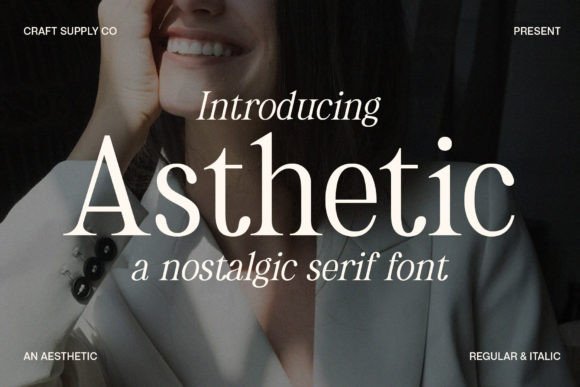
Introducing Asthetic: A Timeless Serif Font for Nostalgic Designs
Have you ever been in the middle of a design project, and suddenly, you’re stuck on finding the perfect font? I recall a particularly frustrating experience while working on a vintage-themed greeting card project. My client wanted a font that would transport their customers back in time, but everything I tried seemed either too modern or too over-the-top. That’s when I discovered Asthetic, a nostalgic serif font that instantly captured the essence of bygone eras.
A Personal Review of Asthetic
As a designer, I’m always on the lookout for fonts that can add a touch of personality to my projects. Asthetic has quickly become one of my go-to fonts, and here’s why:
- ✨ Timeless lines: Asthetic’s classic design ensures that your projects won’t look dated anytime soon.
- ✅ Vintage charm: This font effortlessly evokes a sense of nostalgia, making it perfect for projects that require a retro feel.
- 💯 Versatility: From greeting cards to packaging, brand identity, posters, or any other design project, Asthetic is an excellent choice.
While Asthetic is an excellent font, it’s not without its quirks:
- 🤔 Limited availability of certain OpenType features: While Asthetic does offer some advanced typographic features, it may not have everything you need for highly customized projects.
- ⚠️ Occasional kerning issues: As with any font, you may need to adjust the kerning manually to achieve optimal results.
A Practical Guide to Using Asthetic
The Backstory of Asthetic
While the origins of Asthetic are shrouded in mystery, it’s said that the font was inspired by classic typography from the early 20th century. The designer, seeking to create a font that would evoke a sense of nostalgia, poured over vintage typefaces and combined their best elements to create Asthetic.
| What makes Asthetic unique? | Asthetic’s unique blend of timeless lines and vintage charm sets it apart from other serif fonts. |
| Is Asthetic suitable for body text? | While Asthetic is primarily designed for display purposes, it can be used for body text in certain contexts, such as in vintage-themed publications. |
With Asthetic, you can add a touch of nostalgia to your designs and make them truly unforgettable. Feel free to play with this typeface and explore its many possibilities!